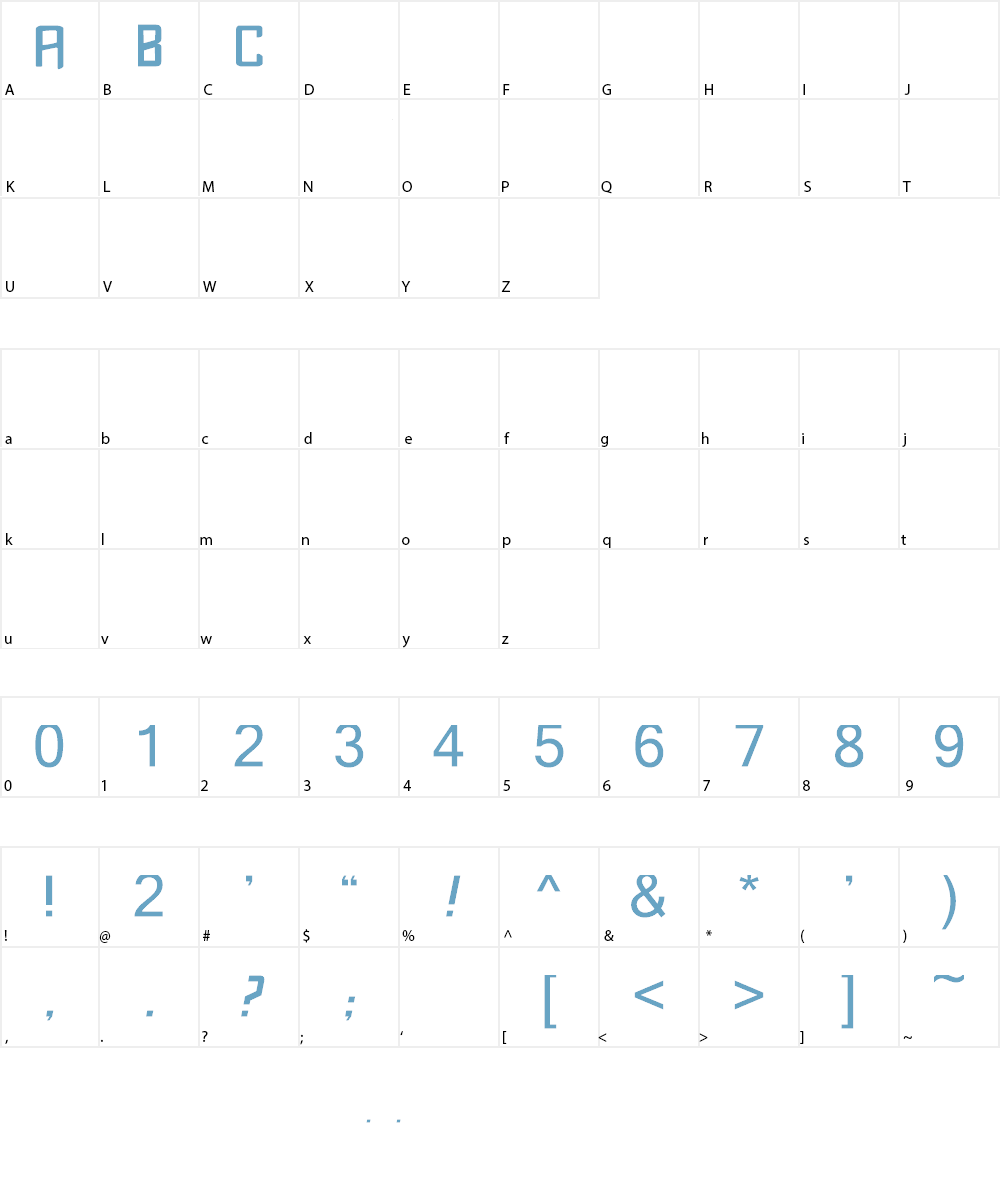
My own version of the excellent Title Font from "Clash of the Dinosaurs" on Discovery in 2011 a great TV show with a great looking font one of my first fan-fonts.